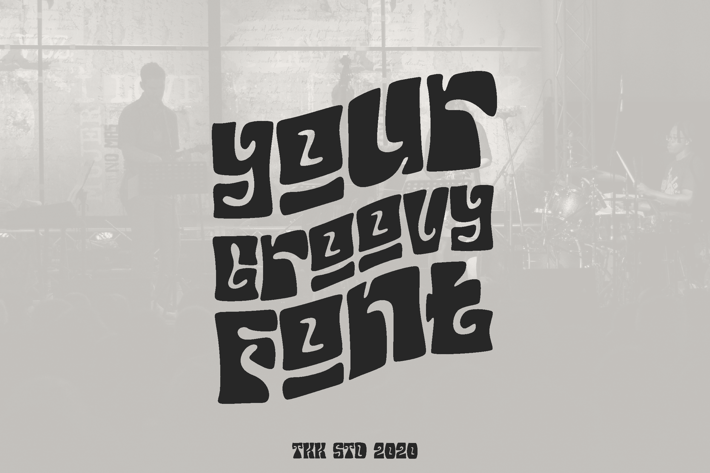
Your Groovy Font - Retro psychedelic 70s font
Your Groovy Font - funk retro psychedelic 70s font
Your Groovy Font is a retro psychedelic display typeface with thick curves, exaggerated letterforms, and nostalgic charm straight from the ‘70s era. Designed with warped balance and fluid proportions, it combines funky flair with bold structure—perfect for standout visuals in modern retro design. Its bold, artsy vibe captures the energy of music posters, vintage vinyls, and festival aesthetics, all while maintaining a legible, high-impact presence.
From groovy album covers to editorial titles and poster ads, Your Groovy Font brings a rhythmic personality to any layout. It appeals to creative professionals looking to invoke funk, fun, and bold movement in their typography. Perfect for branding campaigns, music festivals, fashion lookbooks, coffee shop menus, or any project craving a hit of nostalgic energy and bold artistic contrast.
Key Features :
✔ Psychedelic Retro Look
- Warped letterforms and smooth curves recreate the spirit of ‘60s–‘70s counterculture.
✔ High Visual Impact
- Thick strokes and playful proportions make headlines and posters instantly eye-catching.
✔ Nostalgia-Fueled Versatility
- Use it for events, album art, social media, and funky packaging that needs bold identity.
✔ Creative Personality
- Each letter is uniquely groovy, ideal for personal or commercial work with a vibrant attitude.